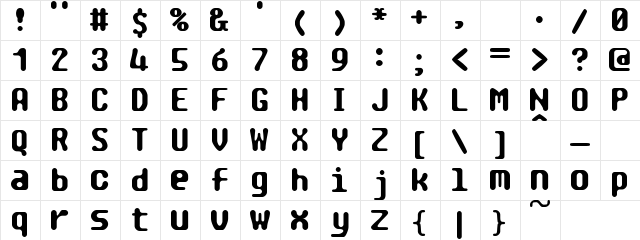
Laila Majnu Regular
Design Context for Laila Majnu Typeface
Laila Majnu is a composed and adaptable typeface that performs quietly and consistently across a wide range of design contexts.